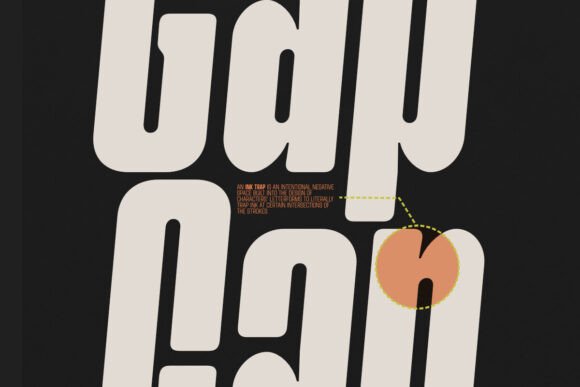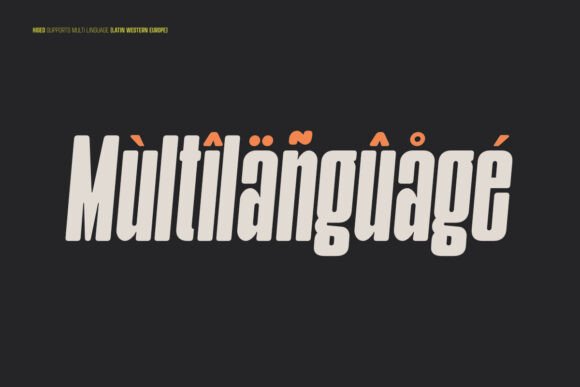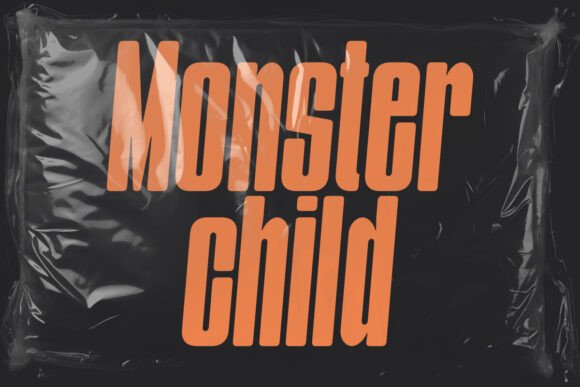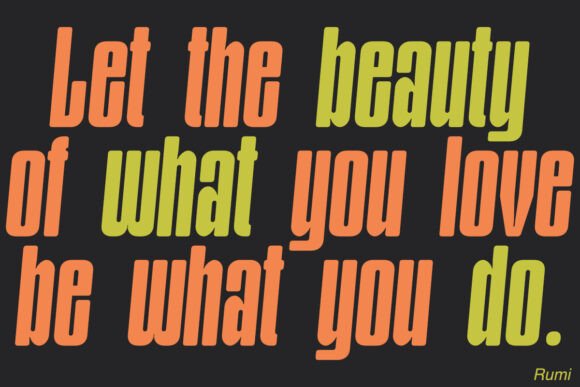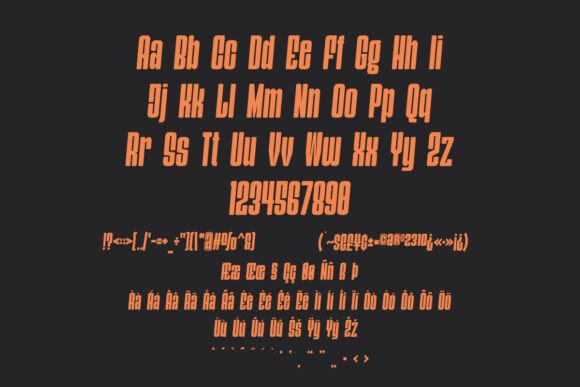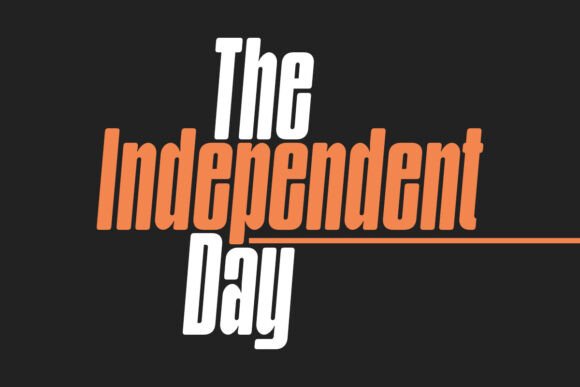
The Power of Higed Italic: Elevate Your Designs with Elegance and Assertiveness
I still remember the design project where I found myself obsessing over the perfect font. My client wanted a bold yet elegant look for their branding, and I was determined to deliver. After hours of scrolling through font libraries, I stumbled upon the Higed font family and its stunning Italic variant. It was love at first sight! The dynamic, slanted style of Higed Italic added a touch of sophistication and energy to my design, making it instantly stand out. In this article, I’ll share my experience with Higed Italic, its features, and how to make the most of this beautiful font in your designs.
What is Higed Italic?
Higed Italic is the slanted variant of the Higed font family, complementing its earlier Regular version. With its dynamic italic or oblique style, this font delivers an elegant yet assertive impression—ideal for emphasizing text, quotations, headings, or any design element that requires a visual accent. Higed Italic retains the core characteristics of the Regular version—such as modern letterforms and balanced proportions—while adding a slant that introduces a sense of motion and expression.
My Honest Review of Higed Italic
• ✨ Elegant and assertive design that’s perfect for headings and emphasis
• ✅ Modern letterforms and balanced proportions for a clean look
• ⚡️ Dynamic italic style that adds a sense of motion and expression
• 💻 Highly versatile and works well in various design contexts
While Higed Italic is an excellent font, there are a few things to keep in mind:
• 🤔 Limited availability of stylistic alternates, which might restrict creative experimentation
• ⚠️ Not ideal for body text due to its italic style, which can be challenging to read in large blocks
The Backstory of Higed Italic
The Higed font family was designed by a renowned type designer who aimed to create a modern and versatile font for creative professionals. Inspired by the geometric shapes and clean lines of contemporary design, Higed Italic was crafted to add a touch of elegance and sophistication to any design project. Although the designer remains anonymous, their work has gained popularity among designers and crafters worldwide.
Q: What is the difference between Higed Italic and other italic fonts?
A: Higed Italic stands out with its unique blend of elegance and assertiveness, making it perfect for headings and emphasis. Its modern letterforms and balanced proportions set it apart from other italic fonts.
Q: Can I use Higed Italic for body text?
A: While Higed Italic is an excellent font, it’s not ideal for body text due to its italic style, which can be challenging to read in large blocks. It’s best suited for headings, quotations, and emphasis.
Q: Does Higed Italic support OpenType features?
A: Yes, Higed Italic supports OpenType features, such as ligatures and stylistic alternates, which can add creative flair to your design.